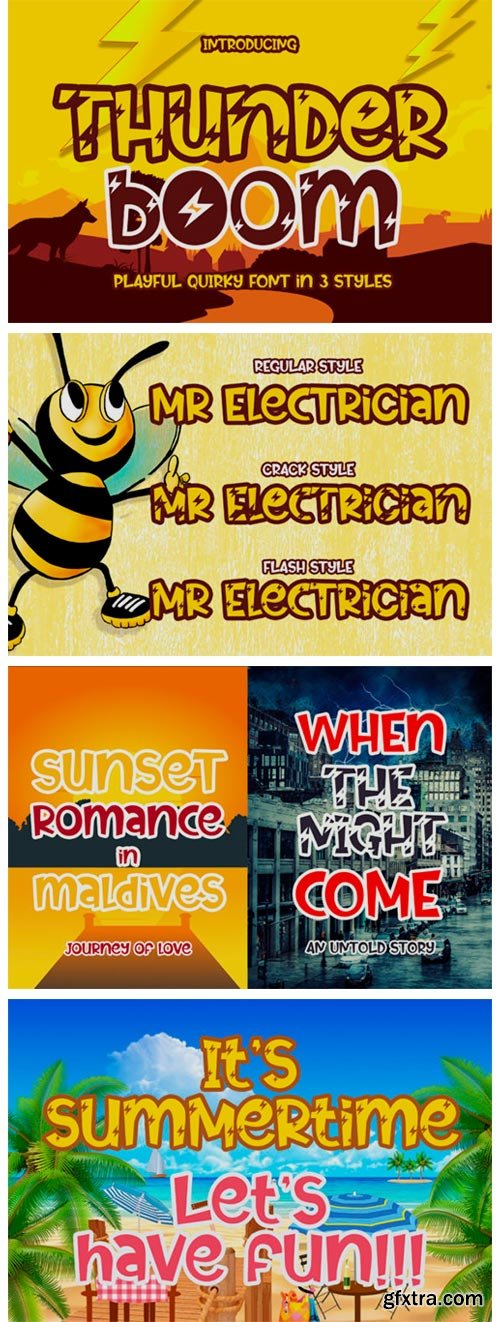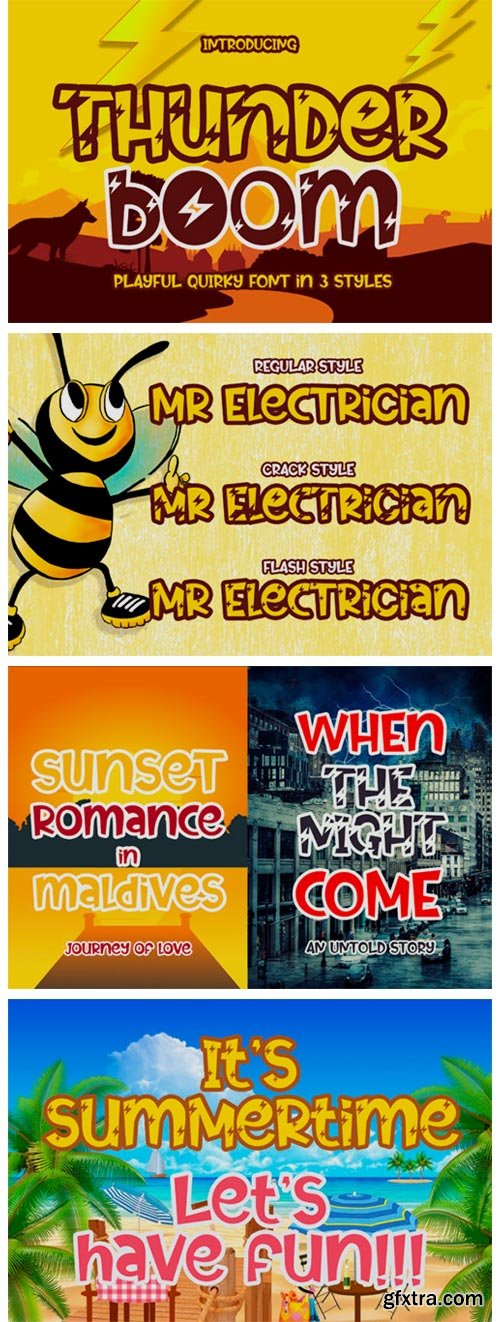
Thunder Boom Font
Thunder Boom is a unique display font with a playful style. It has three gorgeous styles, combine them and add a great touch to your crafting projects!